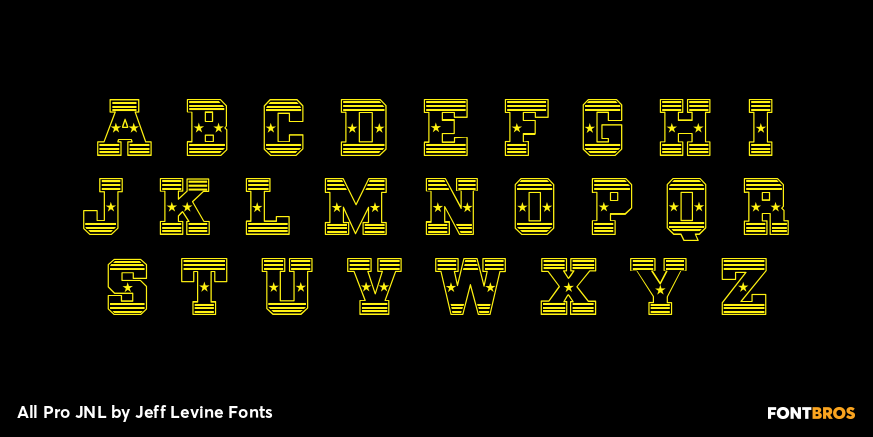
All Pro JNL
All Pro JNL is a sports font embellished with stars and stripes and is perfect for team banners, sportswear and sports-oriented ads. The font contains alphabet, numerals and the most basic of punctuation with very little kerning.